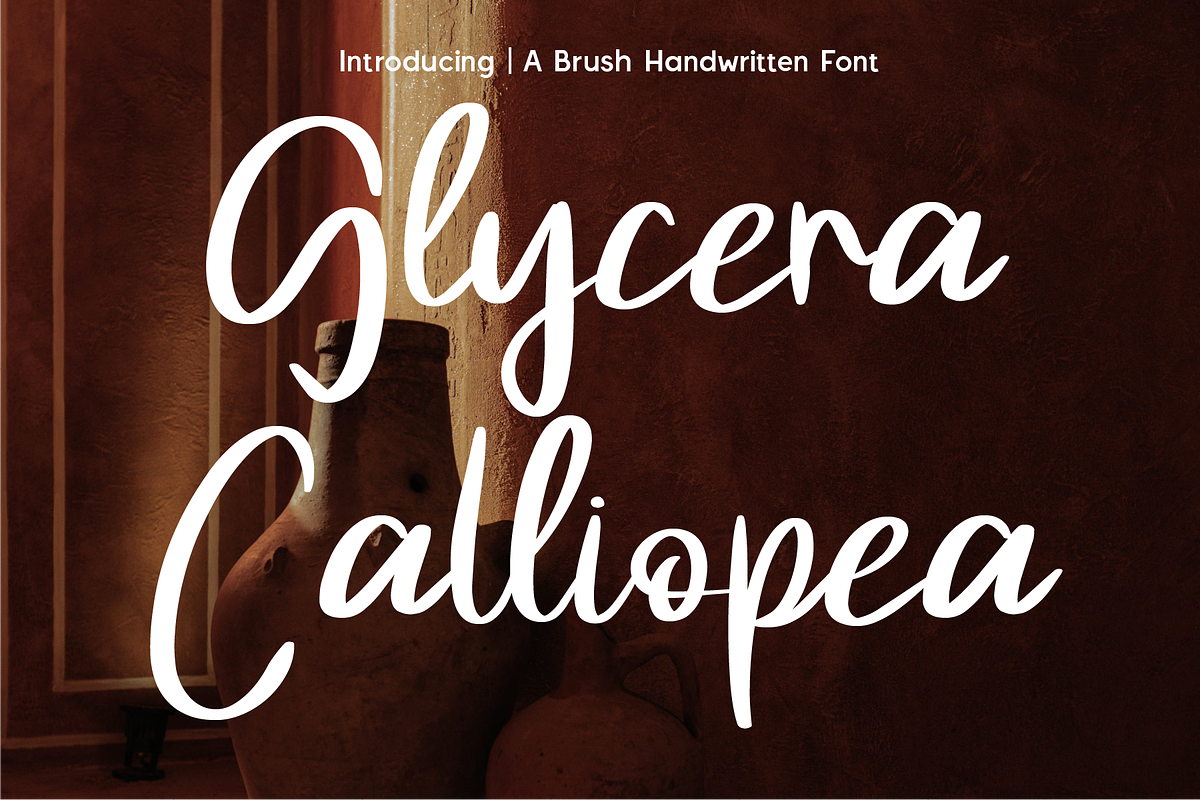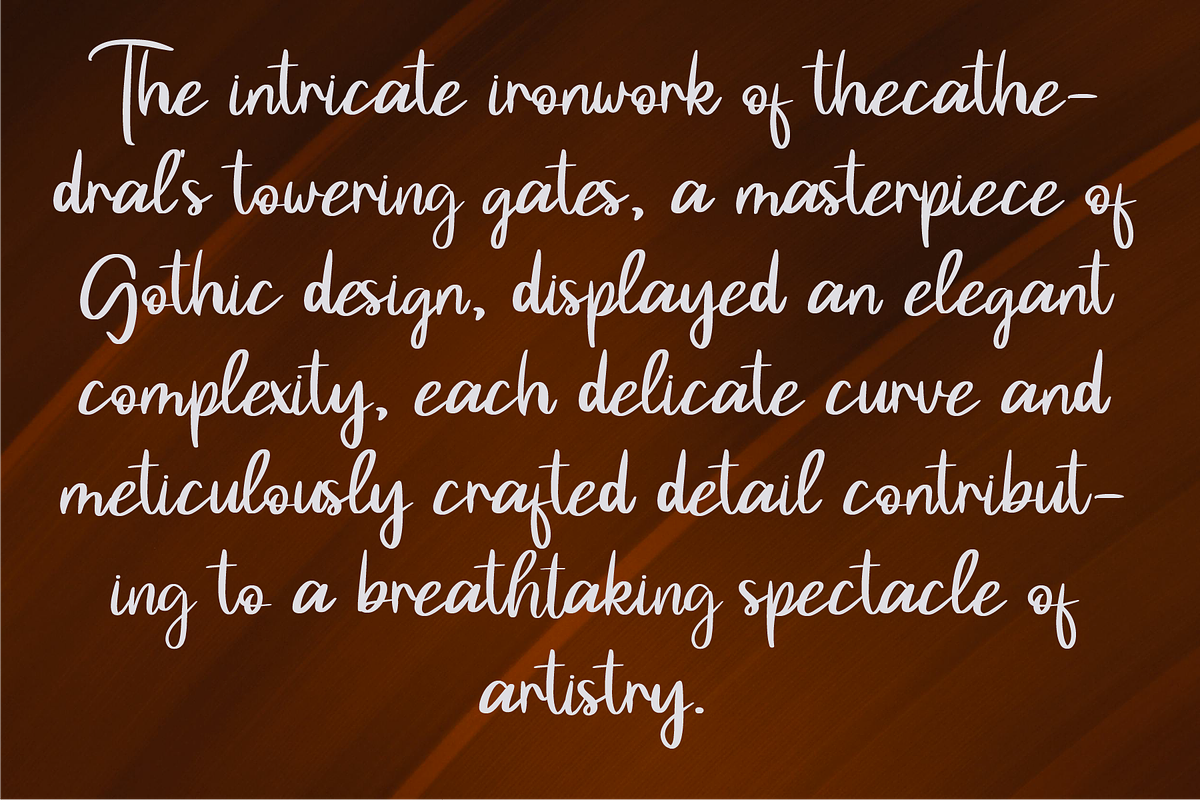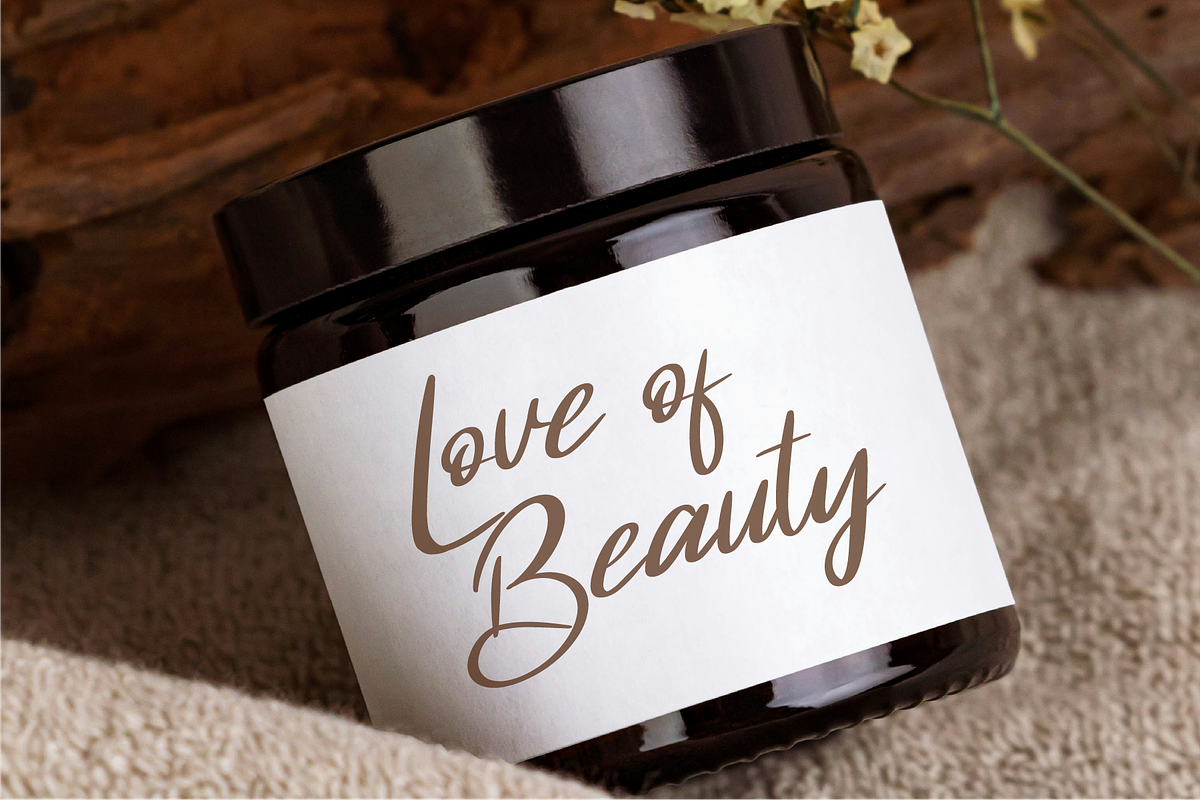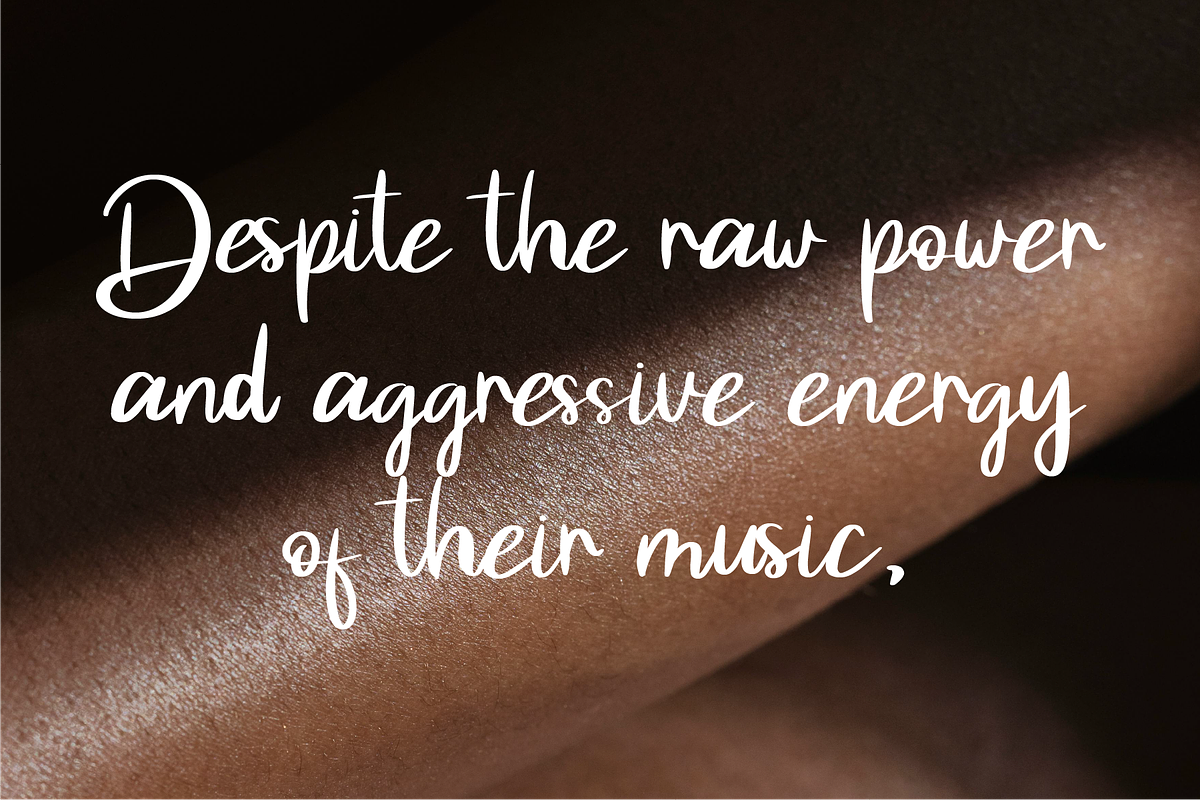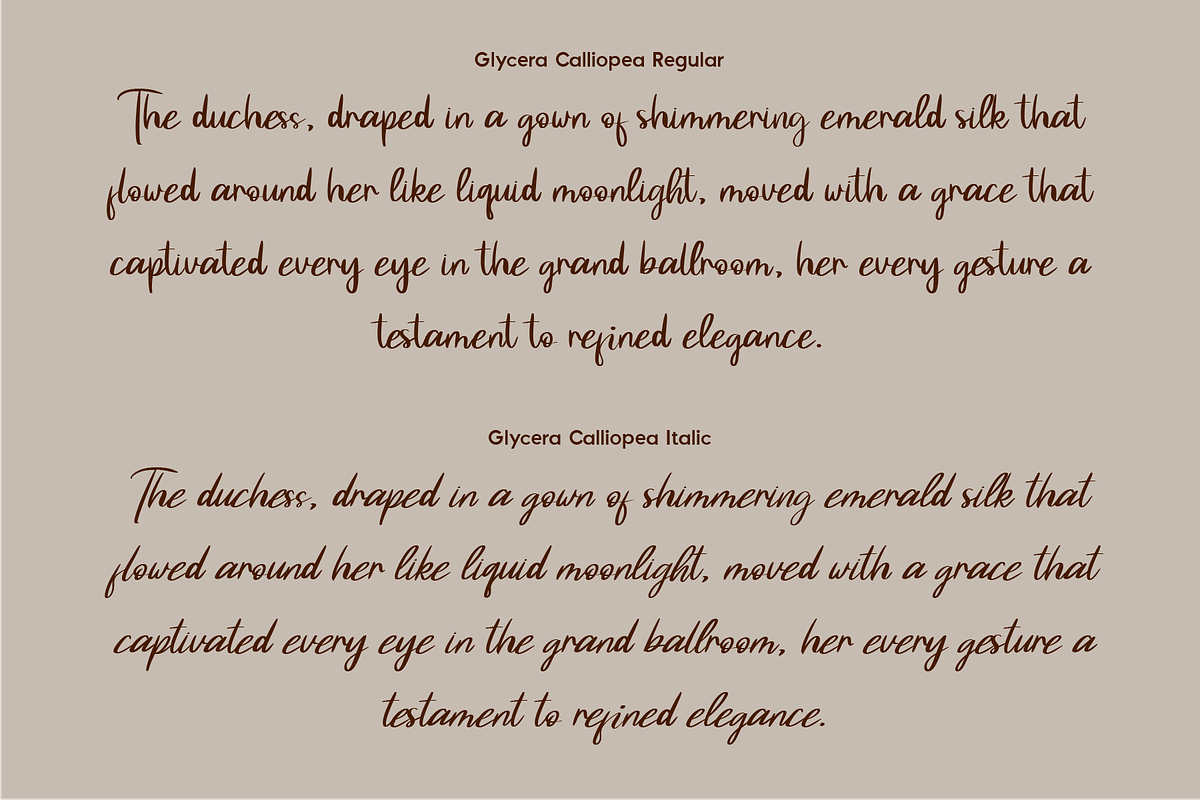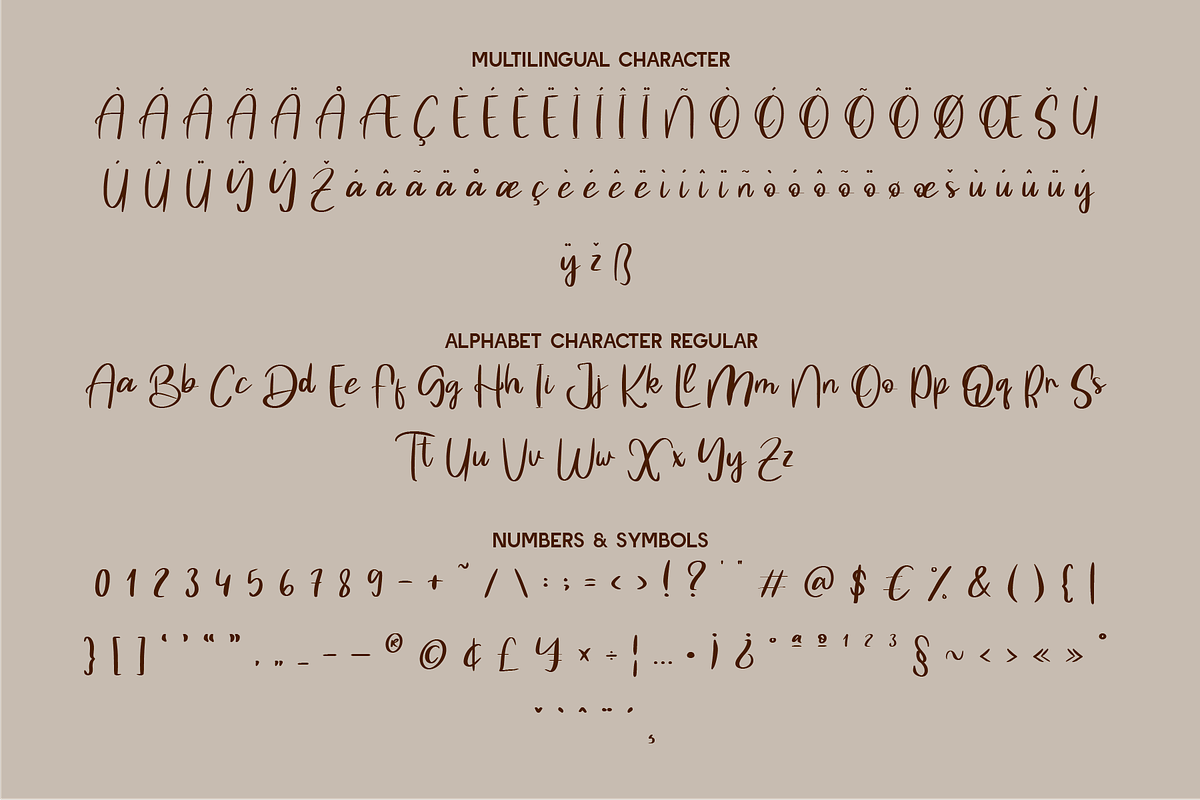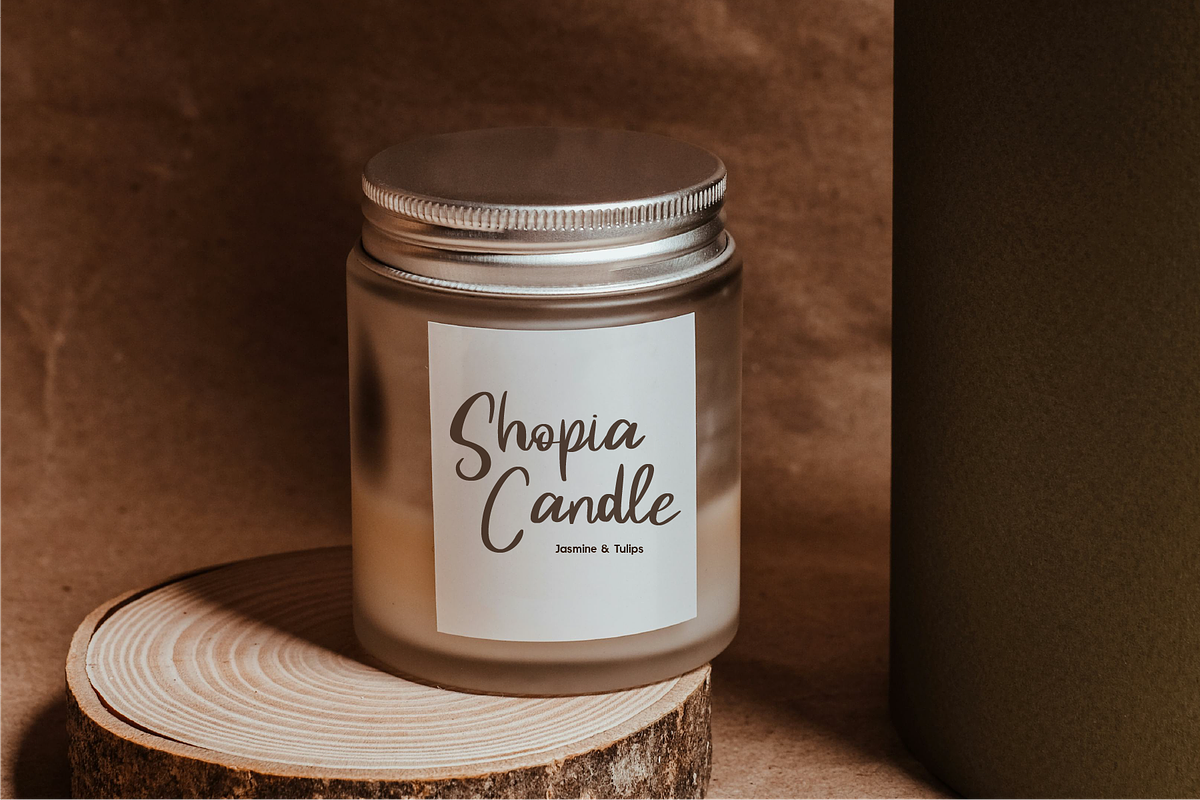
Glycera Calliopea - Beauty Font
Glycera Calliopea – A Graceful & Expressive Brush Handwritten Font Step into the world of handcrafted elegance with Glycera Calliopea, a brush handwritten font that blends fluid strokes with refined sophistication. With its graceful curves and expressive movement, this typeface is perfect for luxury branding, editorial design, wedding stationery, invitations, packaging, and artistic projects. Designed to mimic the natural flow of handwriting, Glycera Calliopea offers an effortless balance of boldness and delicacy. Whether you're crafting a signature logo, a heartfelt message, or an exquisite fashion campaign, this font elevates your design with charm and class.
Why Choose Glycera Calliopea?
✨ Elegant Brush Script: A stylish handwritten font with fluid, natural motion.
🎨 Perfect for Luxury & Artistic Branding: Ideal for fashion, beauty, and premium products.
🖋 Smooth & Expressive Strokes: Designed to replicate the elegance of fine handwriting.
📜 Versatile & Timeless: Suitable for invitations, packaging, editorial layouts, and more. Let Glycera Calliopea bring sophistication and artistic flair to your designs. Download now and add a touch of timeless beauty to your creative projects! ✨🖋
- Standard Character A-Z, a-z, 0-9, Punctuation & symbols
- Regular and Italic